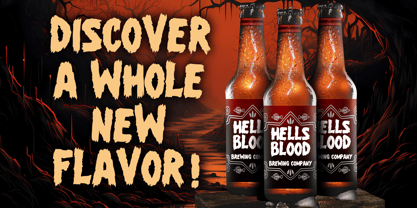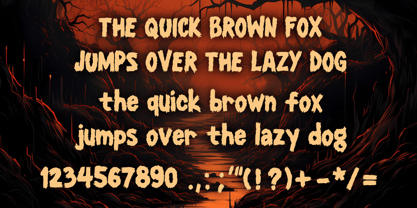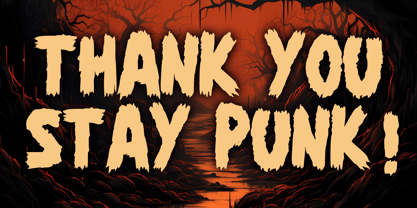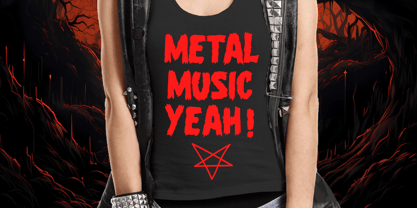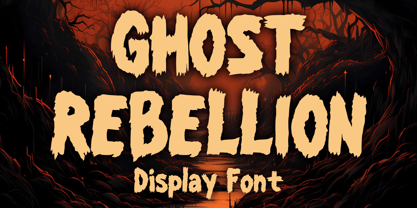
Ghost Rebellion
by Mvmet
The Ghost Rebellion Font Family was designed by Gabriel Valentinus and published by Mvmet. Ghost Rebellion contains 1 styles. More about this family
Introducing Ghost Rebellion - an exceptionally unique font that breathes life into the ghastly and the eerie. Drawing audacious inspirations from vintage horror movies, chilling horror comics, and the rebellious spirit of Metal music, Ghost Rebellion is the perfect companion for your haunting and Halloween-themed creative endeavors. Whether you're designing spine-chilling merchandise like t-shirts and apparel, crafting a frighteningly good book cover, adding a terrifying twist to your Halloween party décor, or conceptualizing wicked greeting cards, stickers, posters, and banners, Ghost Rebellion is designed to inject a horrifyingly delightful touch into all your artistic projects. Experience the terror and thrill of Ghost Rebellion, where every letter treads between the dark and the daring, making it ideal for branding, web design, and editorial use. With its distinctive style and bold character, this font family offers a range of weights and OpenType features that enhance its versatility and appeal.
Designers: Gabriel Valentinus
Foundry: Mvmet